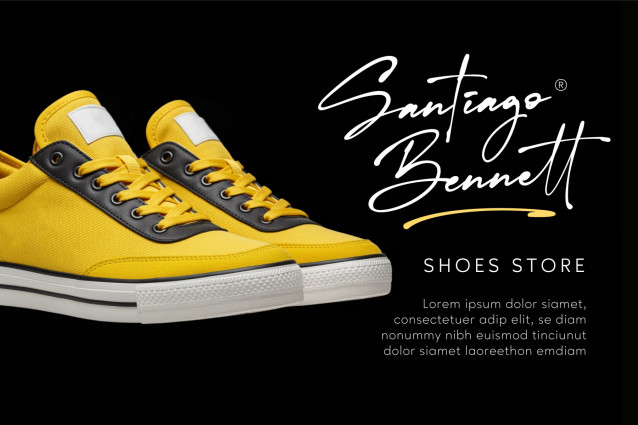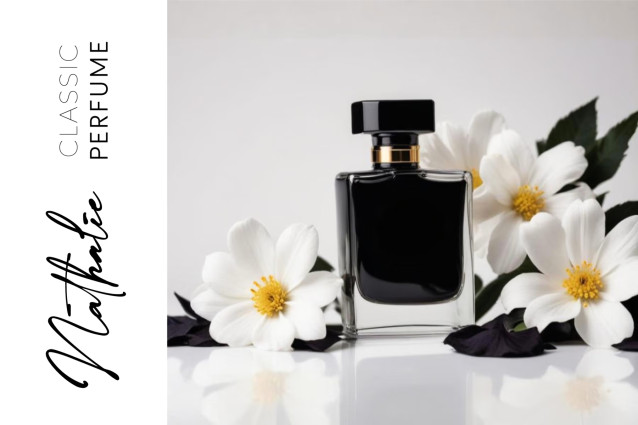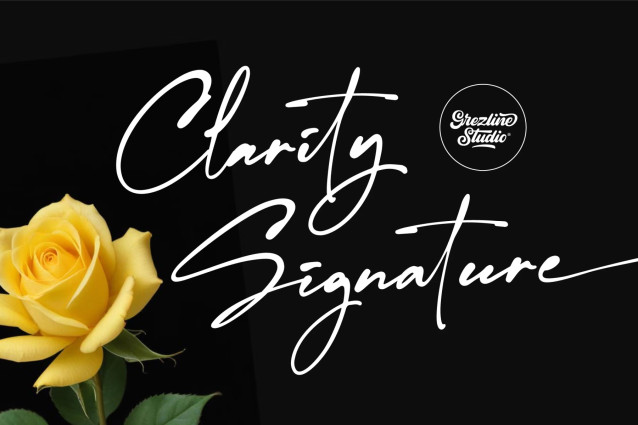
Clarity Signature – Handwritten Font
Say hello to Clarity Signature, the effortlessly elegant handwritten signature font designed to add a touch of aesthetic to your brand, designs, and creative projects. Whether you’re designing an apparel, crafting heartfelt invitations, or elevating your logo, this font brings the warmth of real pen-to-paper charm—without the smudges.